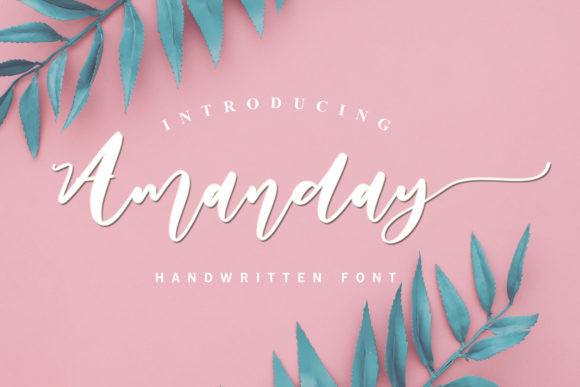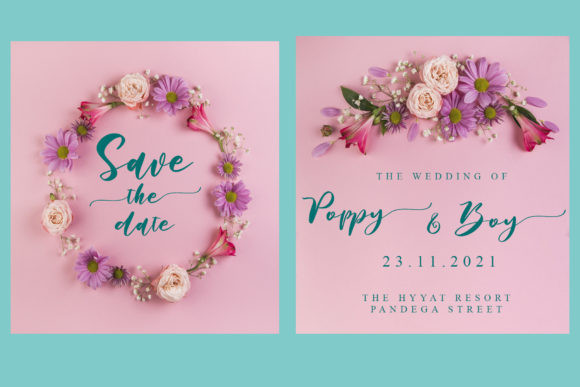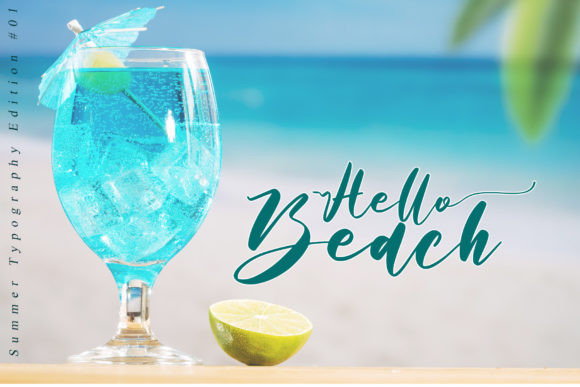
Amanday Font
Amanday FontAmanday is a refined, all round, and cursive handwritten font. It has beautiful and well-balanced characters and as a result, it matches a wide pool of designs.